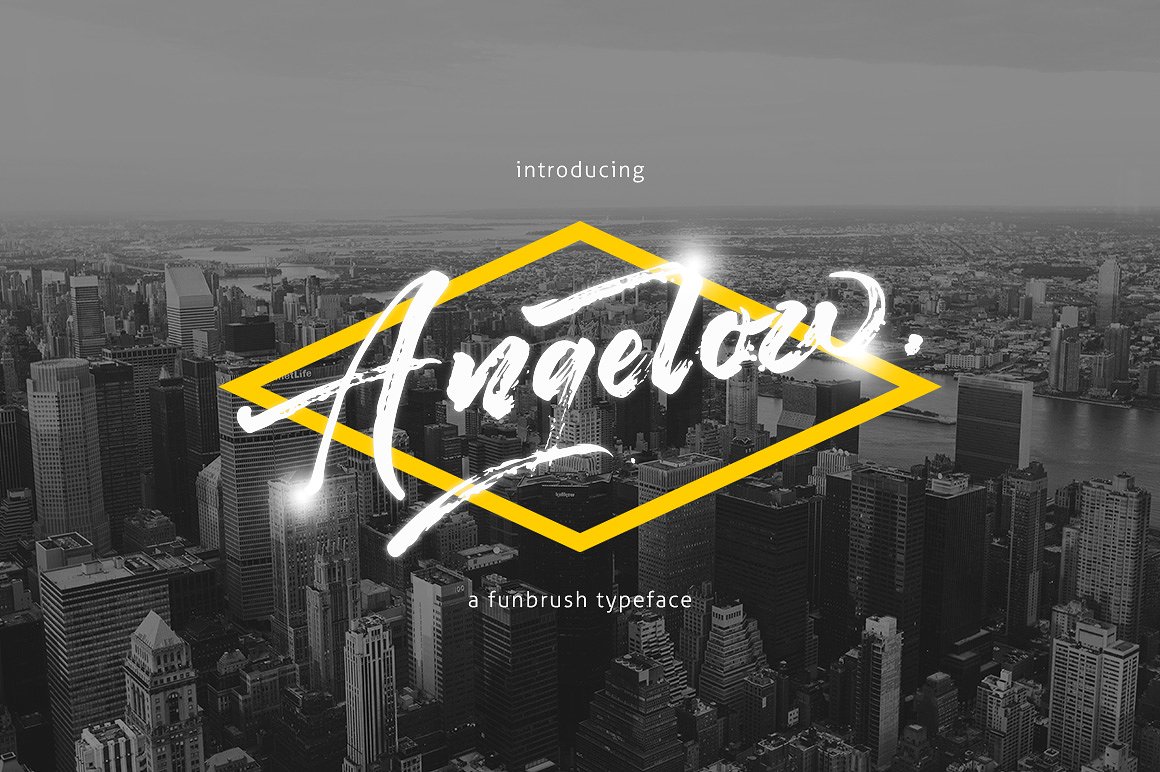
Angelow Brush Font
Hi world!!…Thanks for checking out the Angelow brush font! It’s simple and easy to create awesome lettering, just type your words and then you will immediately see the great results. Hand-painted with distinctive rough brush strokes, Angelow is bound to make a big impact on logos, apparel, quotes, product packaging & more.